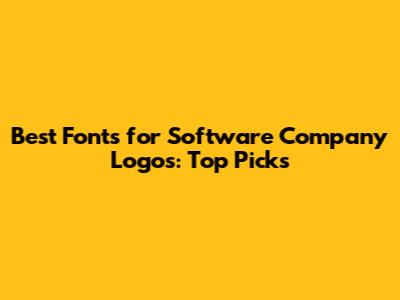
Choosing the right font for your software company logo is crucial. Fonts are more than just letters; they are visual representations of your brand's personality, values, and overall message. The font you select will appear on your website, marketing materials, and even your software interface, so it’s essential to make a choice that resonates with your target audience and accurately represents your brand identity. A well-chosen font can convey professionalism, innovation, and trustworthiness, while a poorly chosen font can make your company appear outdated, unprofessional, or even untrustworthy. It is important to consider what the software company represents in terms of services and products. A font must visually represent the product and services, this will make the brand easily recognizable and representable.
When selecting a logo font, consider your target audience and the message you want to convey. Are you targeting a younger, tech-savvy demographic? Or are you aiming for a more corporate, established clientele? The font should align with your brand's values and mission. A playful, informal font might work well for a startup focused on creative software, while a clean, minimalist font could be more appropriate for a cybersecurity firm. To add, always consider versatility and legibility. Your logo will be used in various sizes and contexts, so it needs to be easily readable both on a large billboard and on a small mobile screen. Make sure the font is clear and legible in both print and digital formats. This is crucial for maintaining brand consistency and ensuring your logo looks professional across all platforms. Testing different fonts is helpful, too, and so asking for a second opinion to aid in the selection process. Remember, your logo is often the first thing potential customers see, so make sure it makes a positive and lasting impression.
Key Considerations When Choosing a Font
Selecting the best fonts involves more than just picking something that looks nice. Several key considerations can help guide you to a font that effectively communicates your brand's identity and values. These include legibility, scalability, brand personality, and the overall impact of the font on your target audience. By taking these factors into account, you can make an informed decision that enhances your company's image and strengthens its brand recognition.
Legibility
Legibility is paramount. If your logo is difficult to read, it defeats the purpose of having a logo in the first place. Ensure the font is clear and easy to read in various sizes and formats. Avoid overly stylized or decorative fonts that can obscure the letters. Consider the spacing between characters and the overall clarity of the font. Fonts that work well in print may not always translate well to digital screens, and vice versa. It's essential to test the font in different contexts to ensure it remains legible across all platforms. Legibility impacts how well potential customers can recognize and remember your brand. A clear, legible font ensures that your company name is easily identifiable, which is vital for building brand recognition and trust.
Scalability
Scalability refers to how well the font looks when it's scaled up or down. Your logo will be used in various applications, from business cards to billboards, so it needs to maintain its clarity and impact at different sizes. Some fonts lose their legibility or become distorted when scaled, which can detract from your brand's image. Choose a font that remains crisp and clear regardless of the size at which it's displayed. Vector-based fonts are generally more scalable than raster-based fonts, as they can be resized without losing quality. Scalability ensures that your logo looks professional and consistent across all platforms. A scalable font helps maintain brand integrity, reinforcing your company's image and message.
Brand Personality
Consider the personality you want your brand to convey. Is your company innovative and cutting-edge? Or is it more traditional and reliable? The font should reflect these qualities. A modern, sans-serif font might be suitable for a tech startup, while a more classic serif font could be a better choice for a consulting firm. Think about the emotions and associations you want people to have when they see your logo. The font should align with your brand's values and mission, helping to create a cohesive and memorable brand identity. A font that accurately reflects your brand personality can help you attract the right customers and differentiate yourself from competitors. Matching your font to your brand personality ensures that your logo effectively communicates who you are and what you stand for.
Top Font Recommendations for Software Company Logos
Choosing the perfect font can feel like a daunting task. To simplify things, here are some top recommendations of fonts that will aid in the process of selecting the right fonts for software company logos, categorized by style and usage, providing a starting point for your logo design process. These suggestions include both popular and lesser-known options, ensuring a diverse range of choices to suit different brand personalities and preferences.
Sans-Serif Fonts
Sans-serif fonts are known for their clean, modern look, making them a popular choice for tech companies. These fonts typically lack the small decorative strokes (serifs) found in traditional fonts, giving them a minimalist and contemporary appearance. Sans-serif fonts often convey a sense of innovation, simplicity, and clarity, making them ideal for software companies that want to project a forward-thinking image. Their legibility and versatility make them suitable for use in various contexts, from website headers to mobile app icons.
Montserrat
Montserrat is a versatile sans-serif font that has gained popularity for its clean and modern aesthetic. It offers excellent legibility and works well in various sizes and contexts. Its geometric design gives it a contemporary feel, making it suitable for tech startups and established software companies alike. Montserrat's versatility extends to both print and digital applications, ensuring that your logo looks professional across all platforms. Its clear and straightforward design helps convey a sense of trustworthiness and reliability, which are essential qualities for software companies. Montserrat is often used for both headings and body text, making it a cohesive choice for your entire brand identity.
Open Sans
Open Sans is another popular sans-serif font known for its readability and neutrality. It's a great choice for companies that want a clean and approachable look. Its open forms and neutral appearance make it highly legible, even at smaller sizes. Open Sans is designed with optimization for print, web, and mobile interfaces in mind, ensuring a consistent and professional look across all devices. Its versatility and clarity make it a reliable choice for various applications, from logos to user interfaces. The font's neutrality allows it to blend seamlessly with different design styles, making it easy to incorporate into your existing branding. Open Sans is particularly well-suited for companies that prioritize user experience and accessibility.